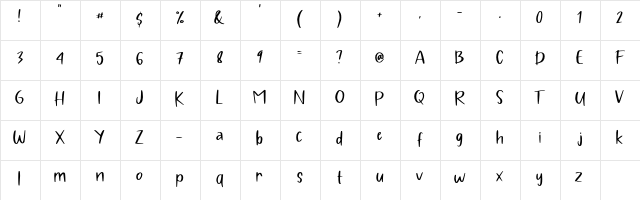
Pig Year Display Regular
| Foundry | Khurasan |
| Designer | Khurasan |
Design Context for Pig Year Display Typeface
Pig Year Display is built around its visual character rather than neutral utility — its distinctive forms are designed to make an impression at display sizes.